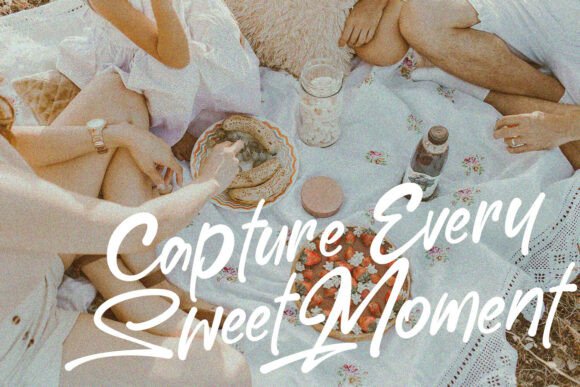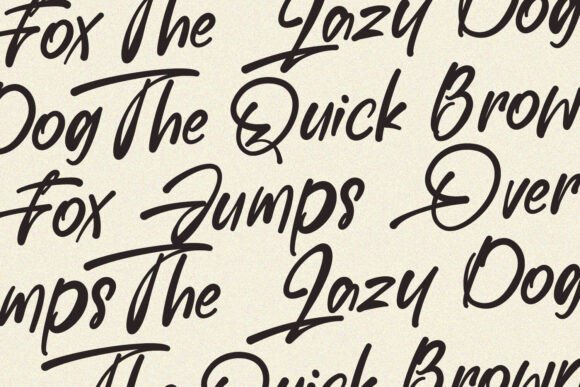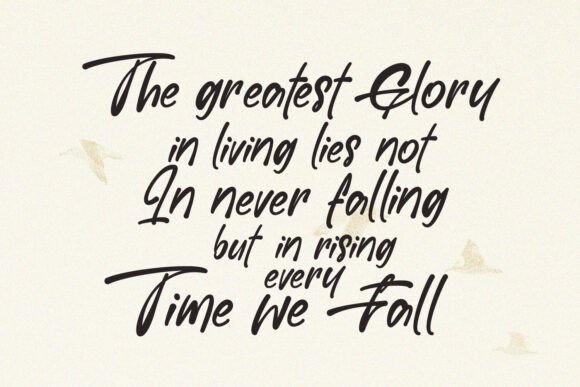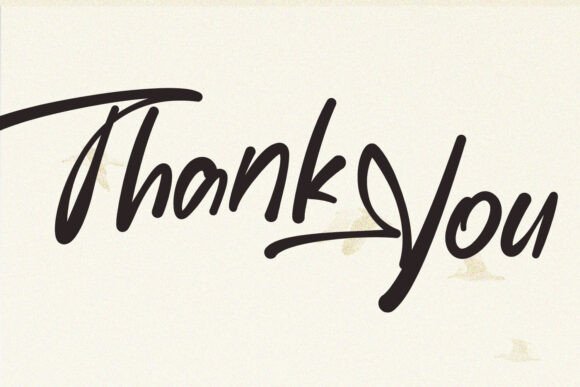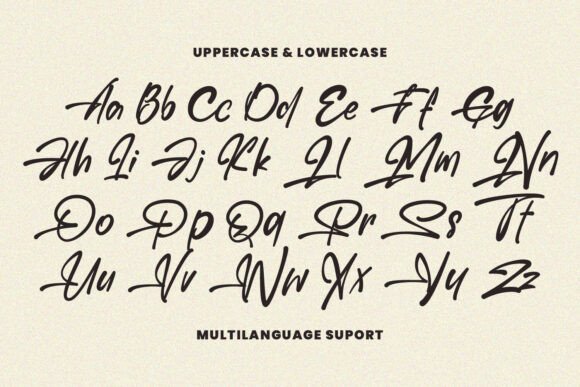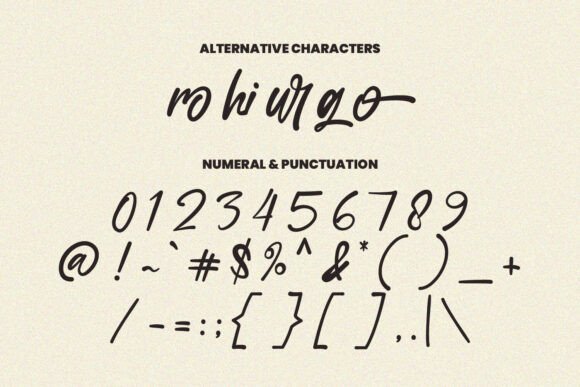
Haguro Shiro Font: Elevate Your Design with a Bold and Stylish Handmade Signature
In the world of typography, a font can make or break a design. For designers and crafters looking to add a touch of elegance and sophistication to their work, Haguro Shiro font is an excellent choice. This bold and stylish handmade signature font exudes confidence and creativity, making it perfect for a wide range of applications, from branding and logos to fashion labels, packaging, and social media graphics.
The Unique Charm of Haguro Shiro
Haguro Shiro font boasts smooth, sweeping strokes that give it an authentic handwritten charm. Its flowing elegance captures the essence of a modern signature with a touch of vintage flair, making it an excellent choice for designers looking to add a personal, high-end touch to their work. The font’s bold and stylish appearance is sure to turn heads, whether it’s used for a logo, a fashion label, or a social media graphic.
Perfect for Branding and Logos
When it comes to branding and logos, a font can make or break a company’s identity. Haguro Shiro font is perfect for businesses looking to establish a strong and confident brand image. Its bold and stylish appearance makes it an excellent choice for logos, letterheads, and business cards. The font’s handmade signature style also gives it a personal touch, making it perfect for businesses looking to establish a unique and memorable brand identity.
Fashion Labels and Packaging
Fashion labels and packaging require a font that is both stylish and elegant. Haguro Shiro font is an excellent choice for fashion designers looking to add a touch of sophistication to their work. The font’s flowing elegance and vintage flair make it perfect for fashion labels, packaging, and accessories. Whether it’s used for a clothing label, a handbag, or a shoe box, Haguro Shiro font is sure to add a touch of high-end style to any fashion product.
Social Media Graphics and More
In today’s digital age, social media graphics are an essential part of any designer’s toolkit. Haguro Shiro font is perfect for social media graphics, including Instagram posts, Facebook graphics, and Twitter headers. The font’s bold and stylish appearance makes it an excellent choice for grabbing the attention of potential customers and establishing a strong brand image. Additionally, the font can be used for a wide range of other applications, including wedding invitations, greeting cards, and posters.
Why Choose Haguro Shiro Font?
So why choose Haguro Shiro font over other fonts on the market? Here are just a few reasons why designers and crafters love this font:
- Unique and Memorable: Haguro Shiro font has a unique and memorable appearance that sets it apart from other fonts on the market.
- Handmade Signature Style: The font’s handmade signature style gives it a personal touch that is perfect for businesses and designers looking to establish a unique brand identity.
- Flowing Elegance: The font’s flowing elegance and vintage flair make it perfect for a wide range of applications, from fashion labels to social media graphics.
- Bold and Stylish: Haguro Shiro font is bold and stylish, making it perfect for grabbing the attention of potential customers and establishing a strong brand image.
In conclusion, Haguro Shiro font is an excellent choice for designers and crafters looking to add a touch of elegance and sophistication to their work. Its bold and stylish appearance, combined with its handmade signature style and flowing elegance, make it perfect for a wide range of applications, from branding and logos to fashion labels, packaging, and social media graphics. Whether you’re a designer, a crafter, or a business owner, Haguro Shiro font is sure to elevate your design and establish a strong brand image.